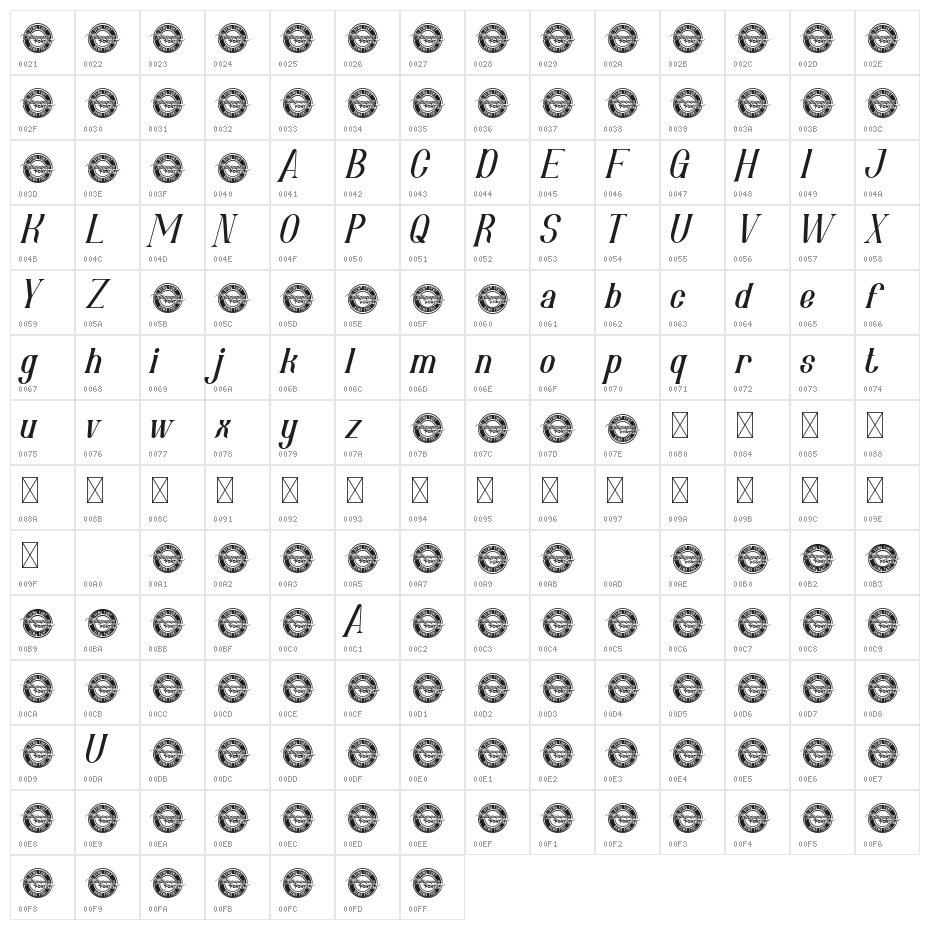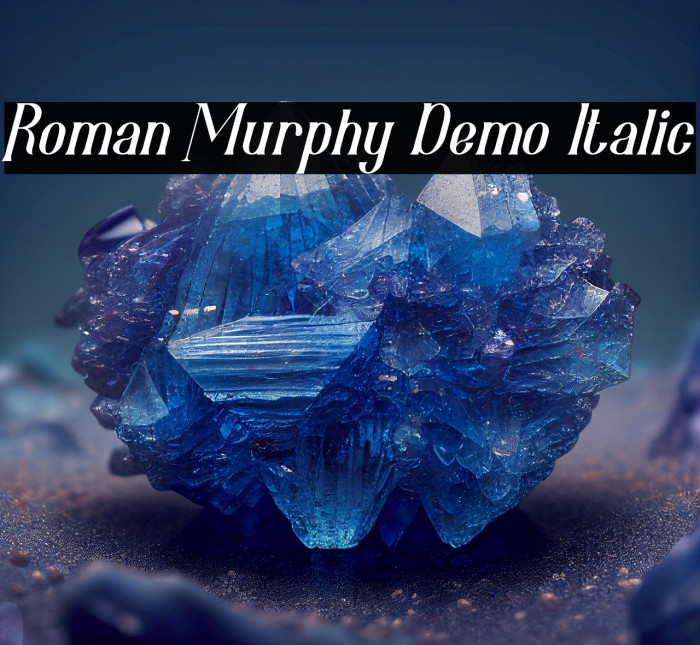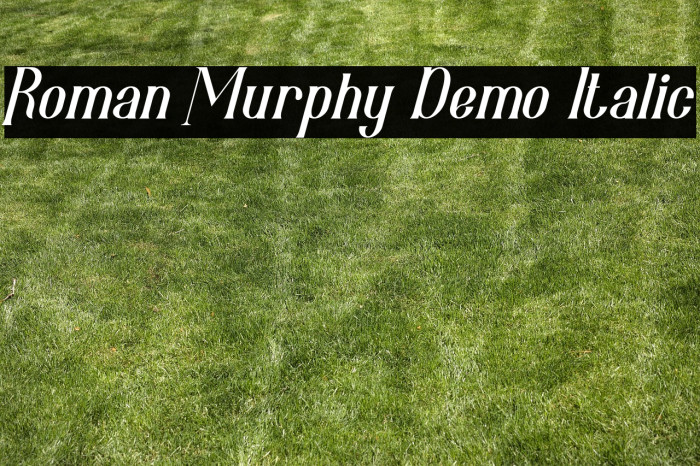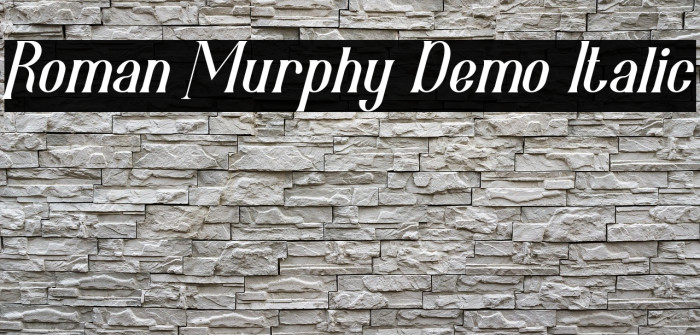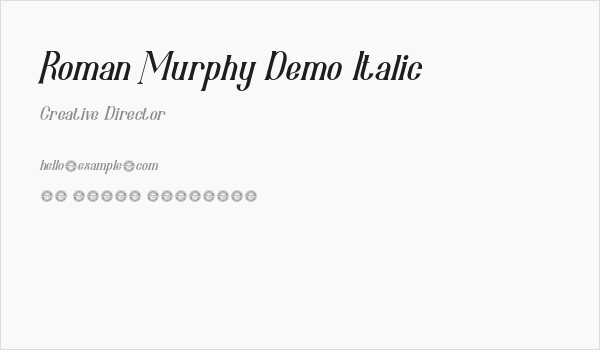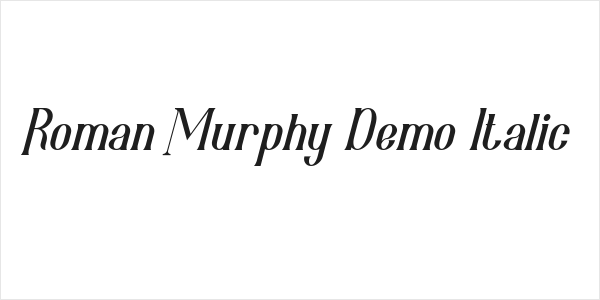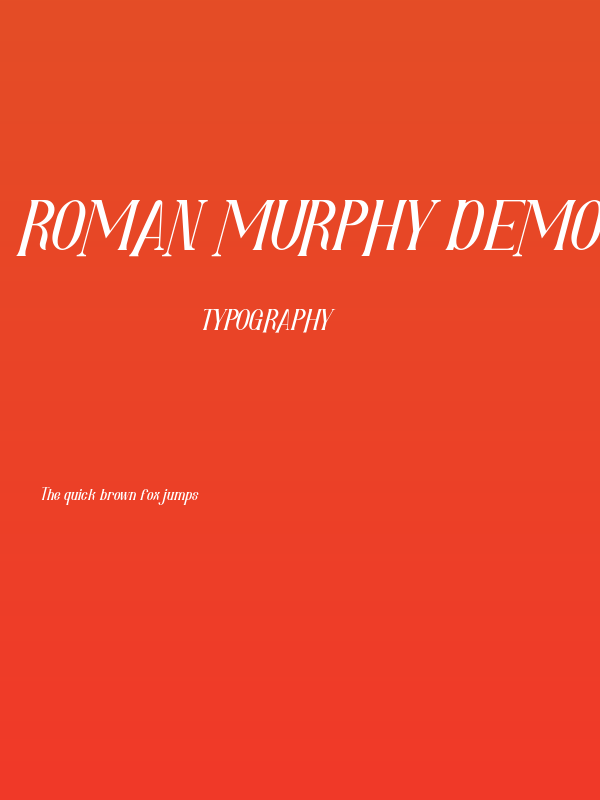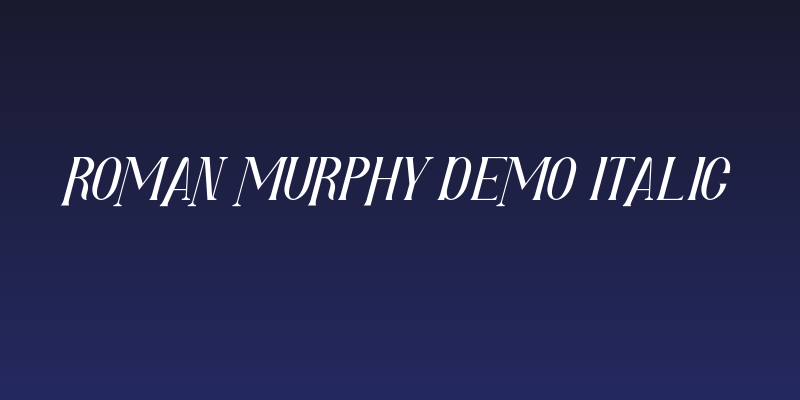
Roman Murphy Demo Italic Font
Roman Murphy Demo Italic Description
This font exudes a classic elegance with its italicized, flowing characters. The uppercase letters are tall and slender, with a slight slant that adds a dynamic feel. The lowercase letters maintain a consistent style, featuring smooth curves and a refined appearance. The font's overall design is sophisticated, making it suitable for formal and decorative purposes. The characters are well-spaced, ensuring readability while maintaining an artistic flair. The font's italic nature gives it a sense of movement and grace, making it ideal for projects that require a touch of class and elegance.